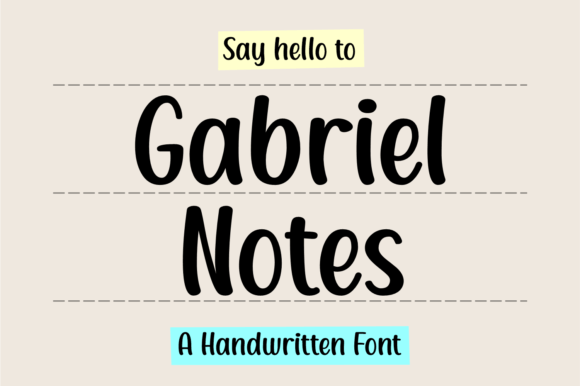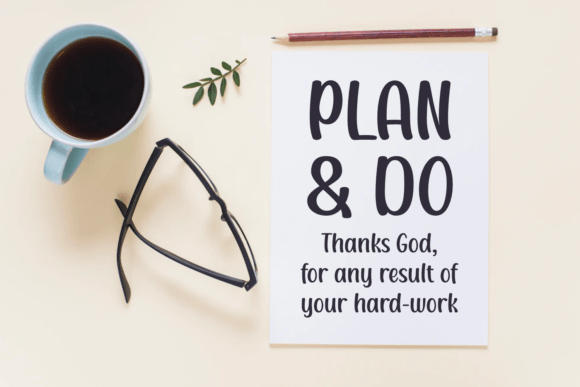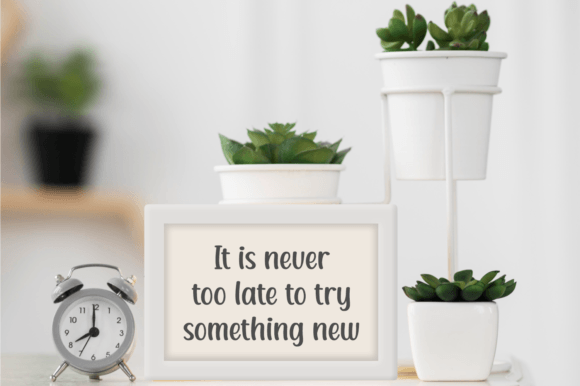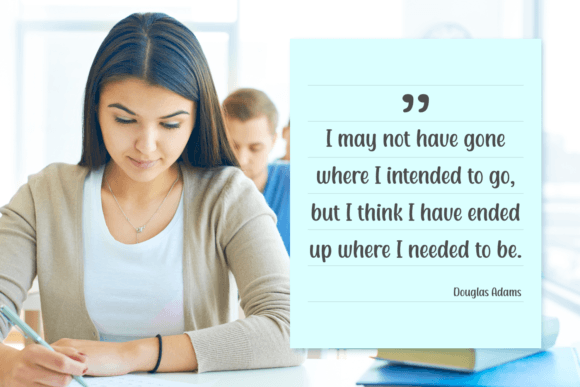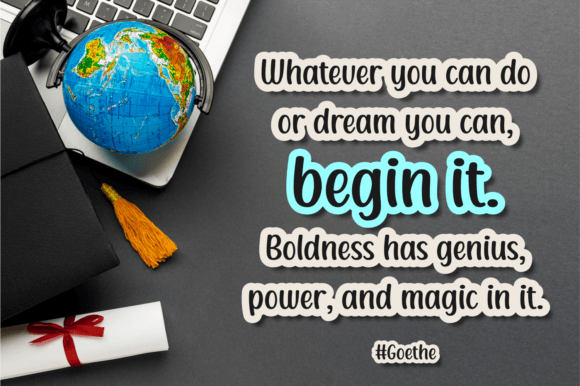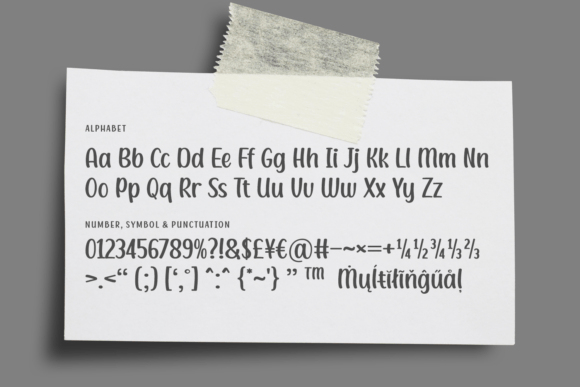
Gabriel Notes Font
If you’re looking for a fun and engaging font that brings joy to every design, the Gabriel Notes Font download is the perfect solution. This cheerful handwritten typeface was created to evoke a sense of playfulness and authenticity, making it a standout choice for any child-related or educational project.
From the first glance, Gabriel Notes Font exudes friendliness. With slightly uneven lines and a relaxed handwritten structure, it replicates the look of natural writing with a youthful twist. This font is ideal for adding a personal touch to kids’ content without compromising readability or professionalism.
Perfect for Educational and Creative Use
The Gabriel Notes Font download was designed with children in mind. It feels approachable, casual, and inviting — making it a great choice for:
• Children’s Worksheets
• Classroom Posters and Labels
• Storybooks and Activity Books
• Birthday Invitations
• Craft Projects and Scrapbooks
• Digital Planners for Teachers or Parents
Its charming and handwritten aesthetic captures the spontaneity of a child’s notebook. Whether you’re a teacher, parent, designer, or brand working with children’s products, this font will make your designs more vibrant and joyful.
Design Style & Use Cases
Gabriel Notes Font brings balance between playful and legible. It’s fun enough to use on birthday cards and party banners but still clean enough to read in instructional materials or classroom signage. That versatility makes it a go-to typeface for a wide range of design needs.
Some additional use cases:
• Children’s YouTube thumbnails and overlays
• Teacher-created resources for TPT (Teachers Pay Teachers)
• Learning apps or kid-friendly websites
• Kid-focused branding and packaging